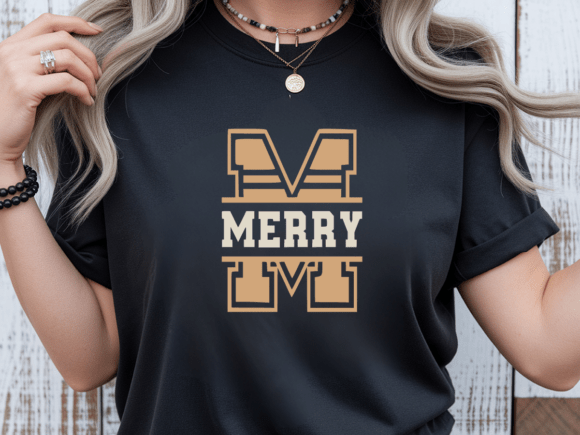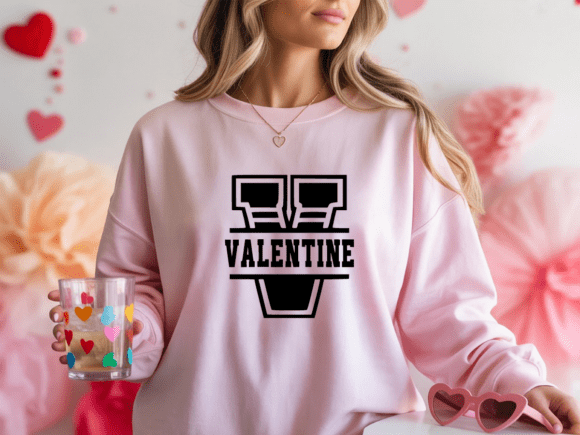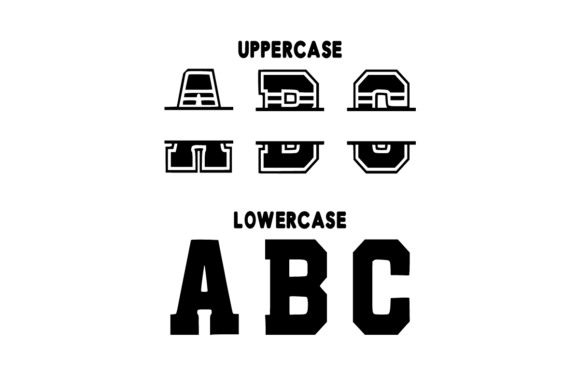
Introduction to Monogram Retro Font
🏆 Monogram Retro – Classic Varsity Monogram Font 🏆 Step onto the field of style with Monogram Retro, a premium display font designed for bold statements.
This font captures the timeless essence of vintage collegiate sports, featuring structured uppercase letters and specialized monogram characters that interlock or stack perfectly for high-end athletic branding With its sharp geometric lines and classic block aesthetic, Monogram Retro is your go-to tool for creating professional team logos, personalized apparel, and vintage-inspired emblems.
Key Features of Monogram Retro Font
Why Choose Monogram Retro Font?
Monogram Retro Font offers exceptional quality and versatility, making it a valuable addition to your design toolkit. Whether you’re creating for personal projects or commercial use, Monogram Retro Font delivers professional results.